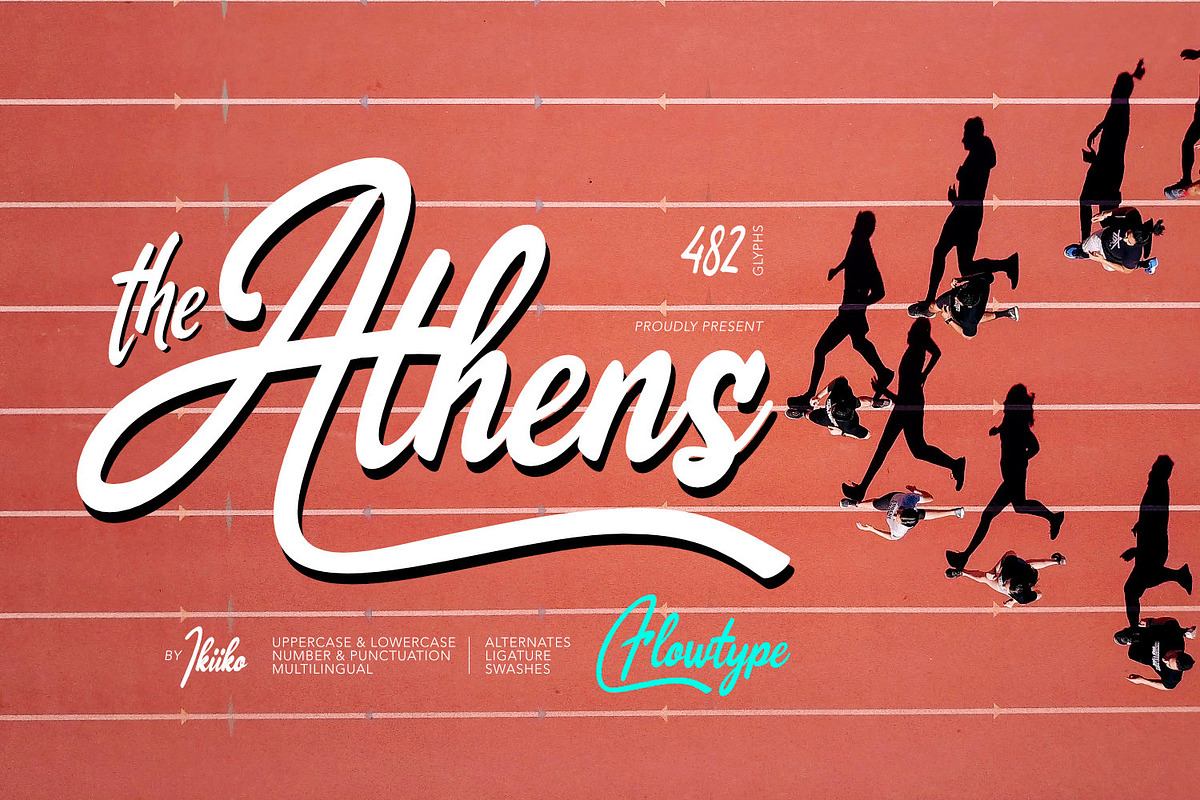
The Athens - Flowtype Font Free Download is a smooth, elegant script typeface designed with a modern touch. Featuring flowing, graceful strokes and well-balanced letterforms, The Athens brings sophistication and readability to your designs. Ideal for branding, invitations, social media posts, logos, and high-end marketing materials, this font is perfect for projects that require a refined, stylish aesthetic.
Using the The Athens - Flowtype Font Free Download adds a contemporary, artistic feel to your typography. Whether you're creating a luxury brand, designing a wedding invitation, or working on premium promotional materials, this font provides a perfect blend of elegance and modern flair.